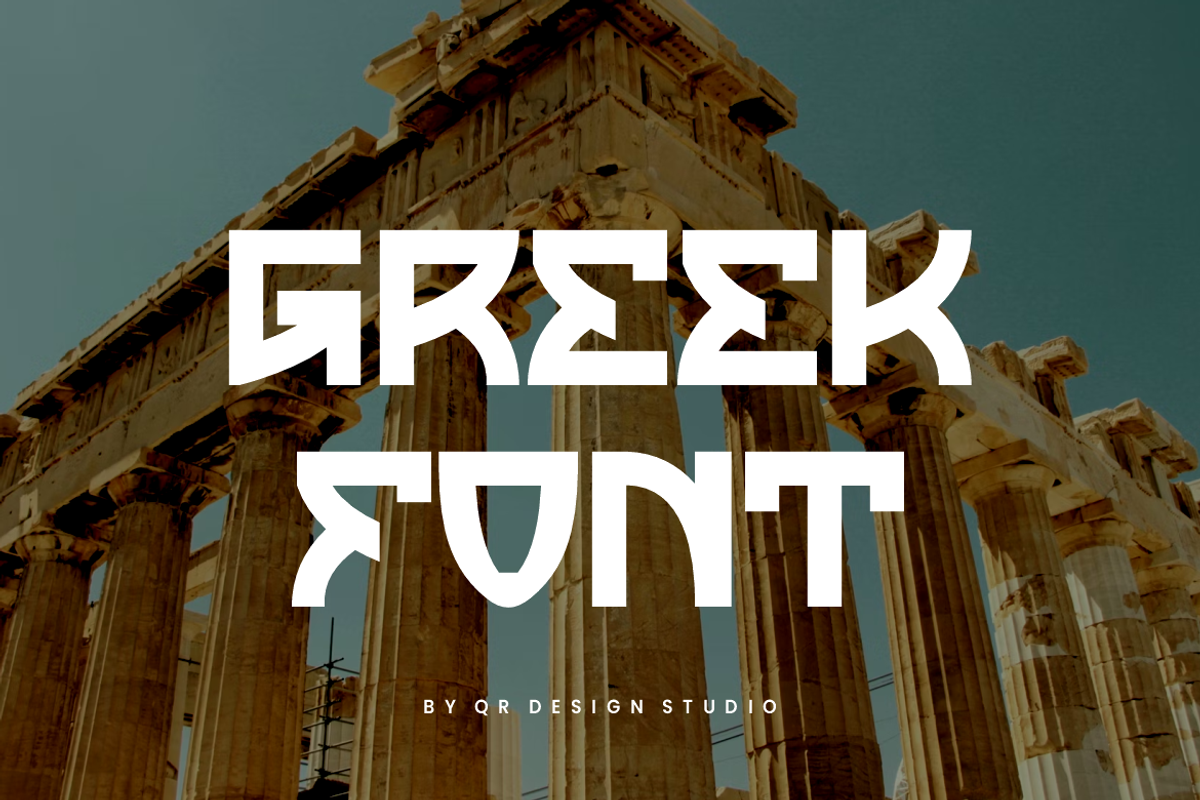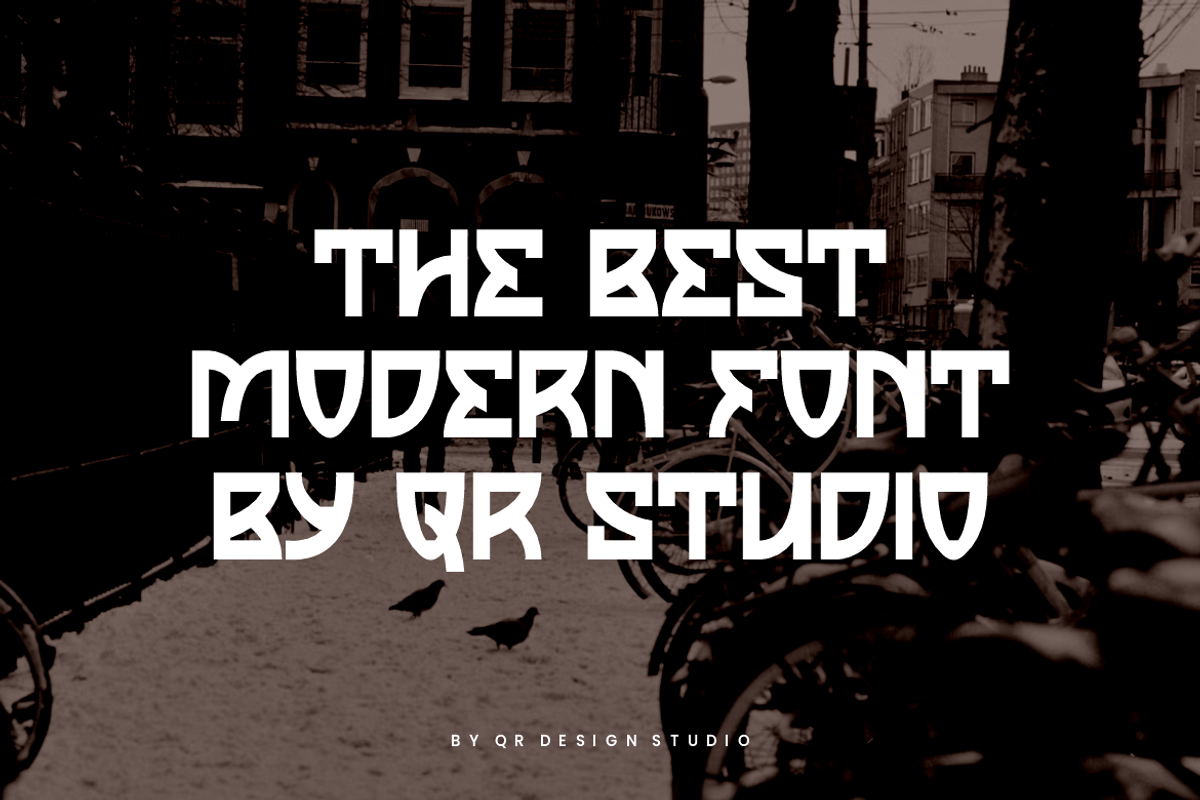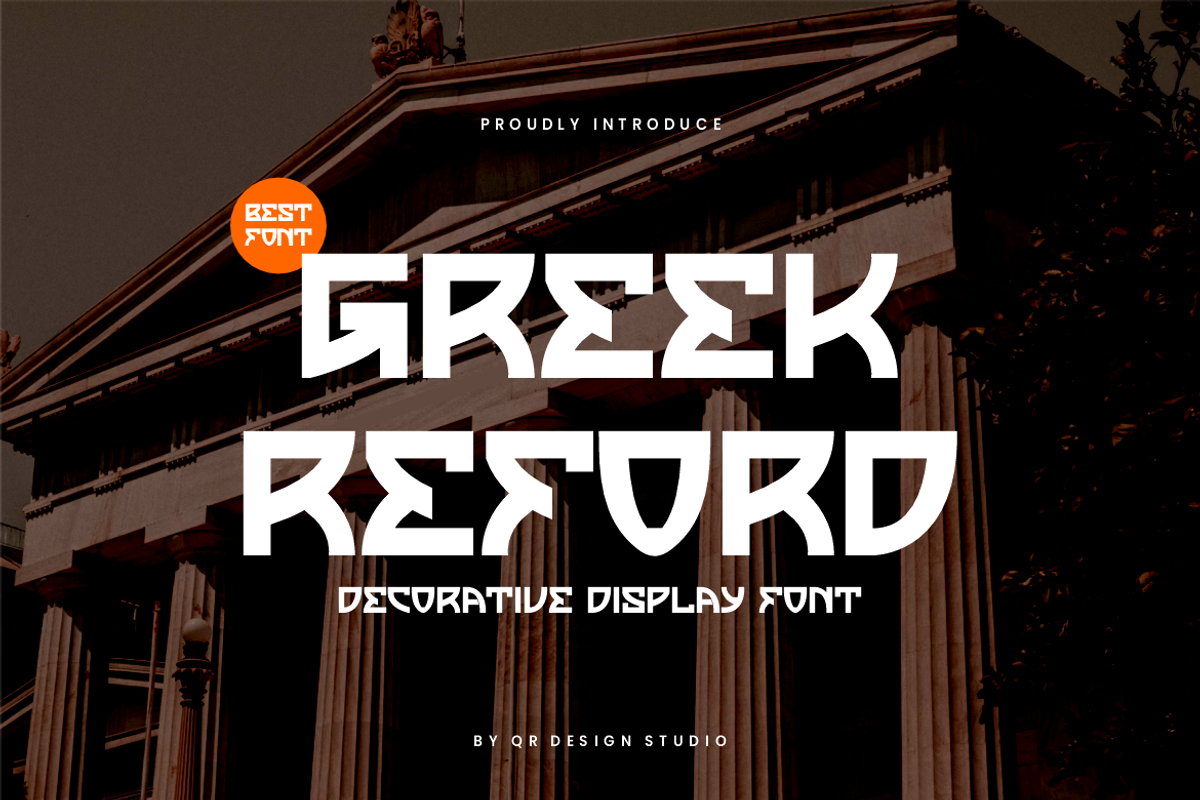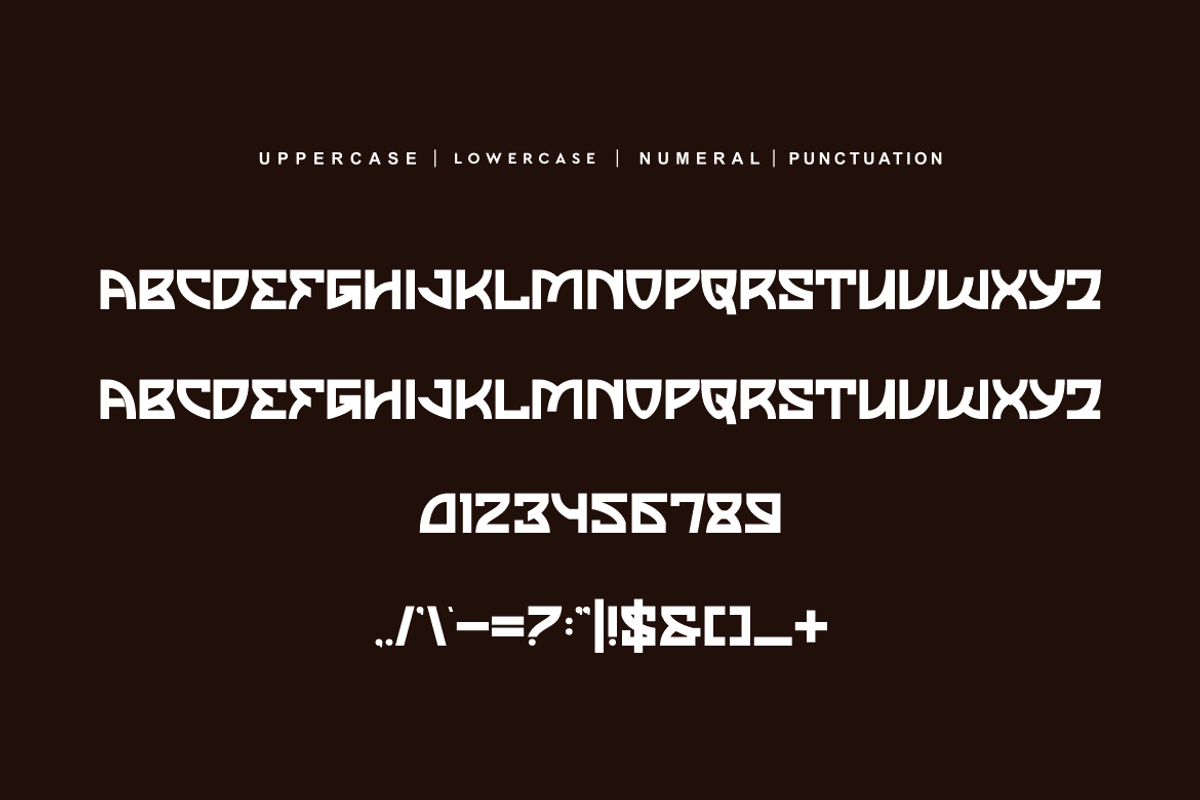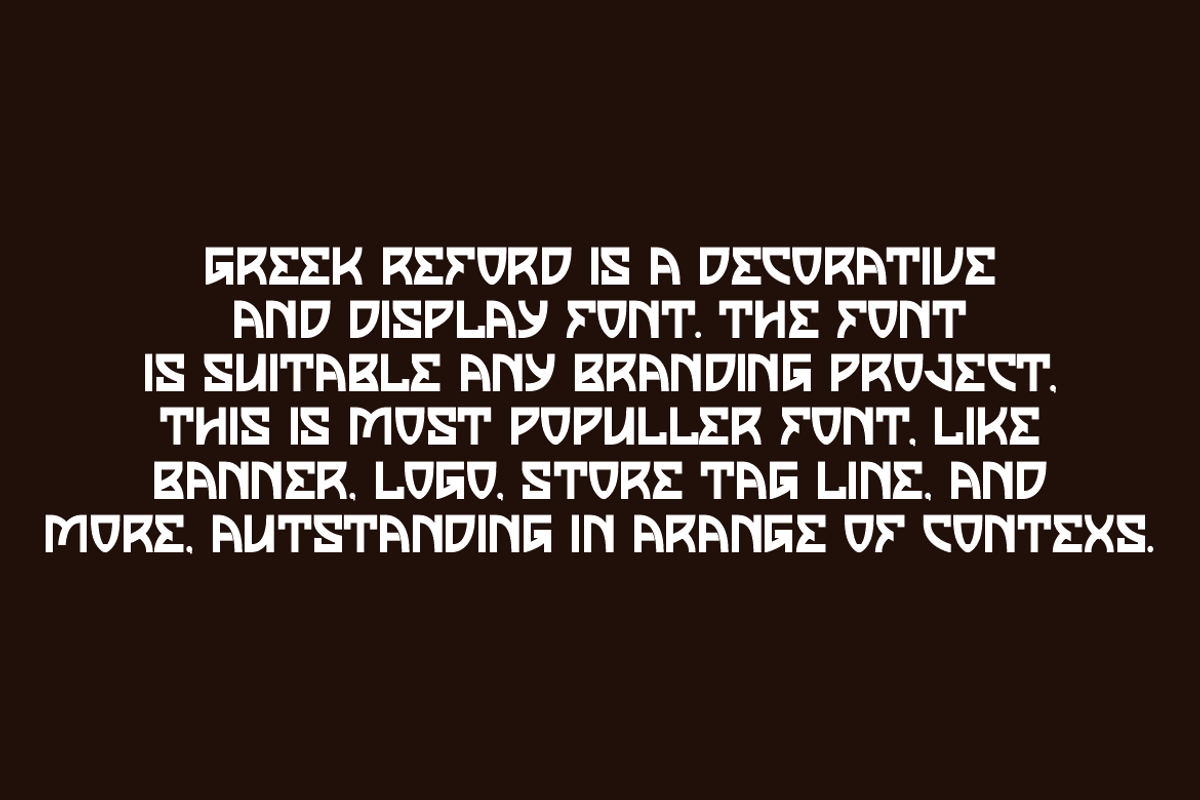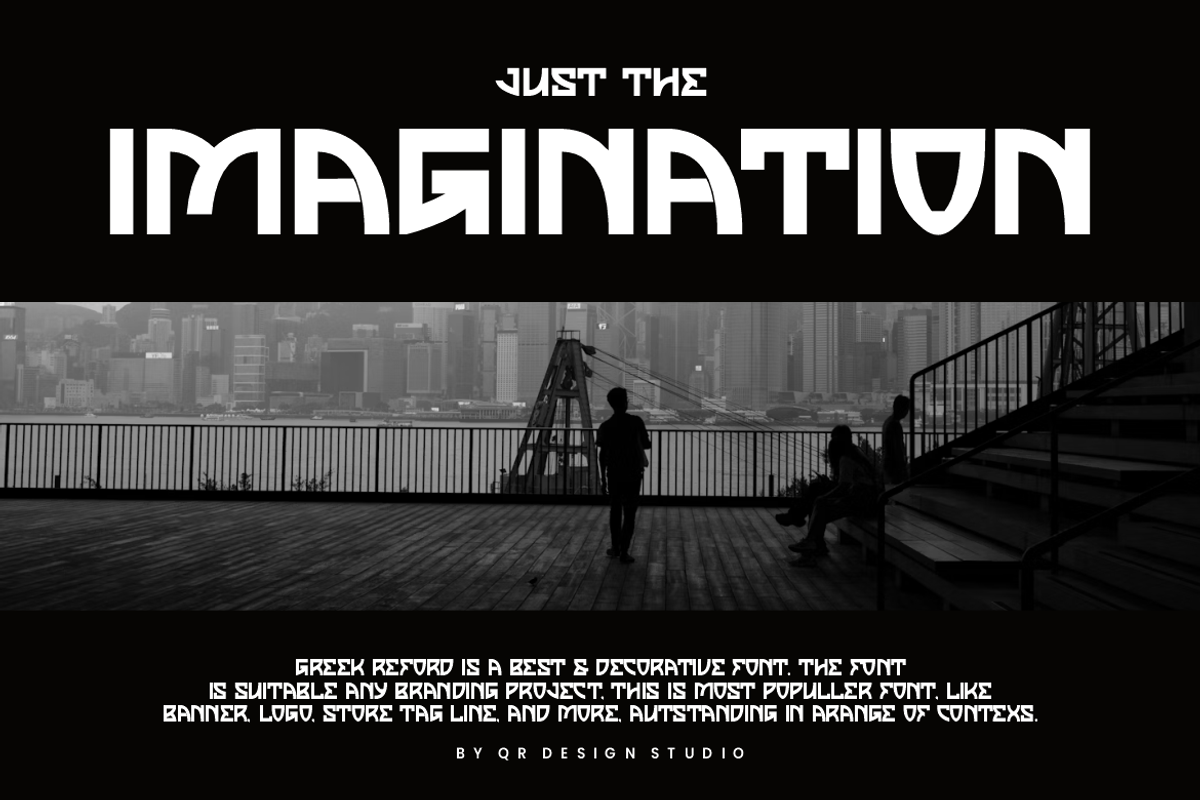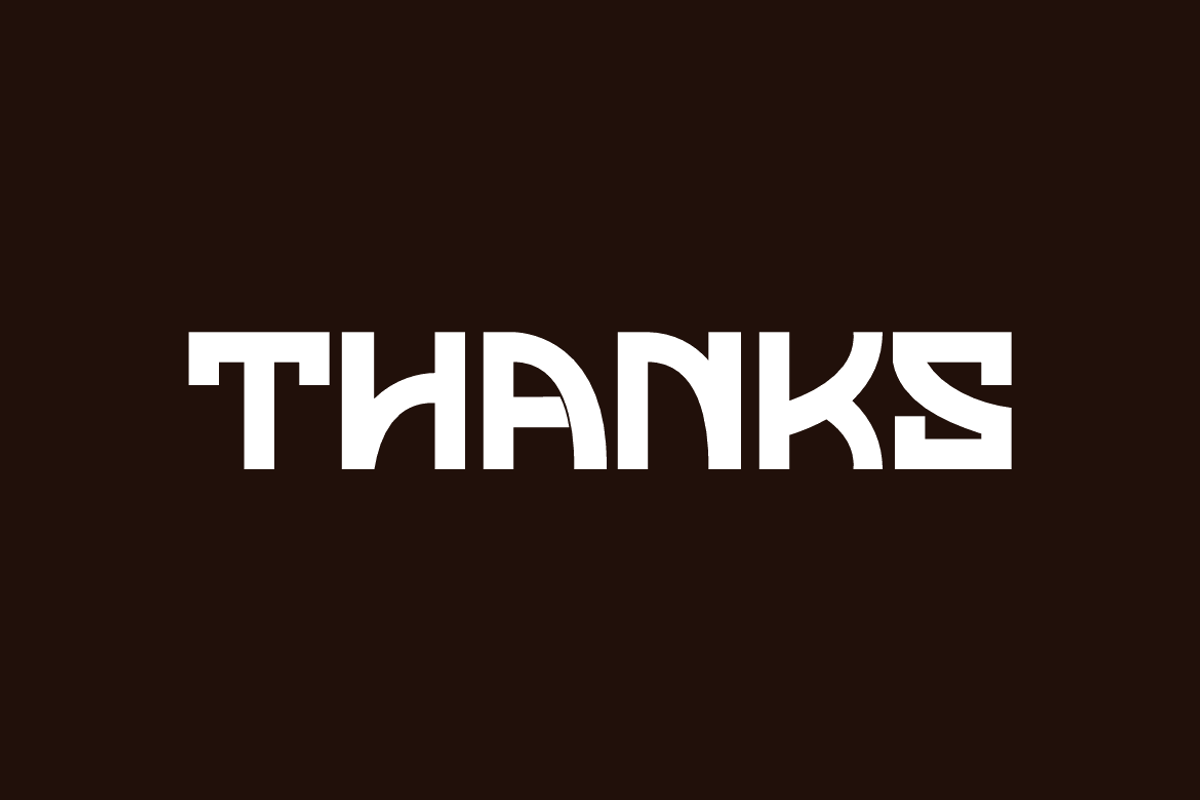
Greek Reford - Unique Typeface Font
Greek Reford Font is a bold and authentic display font. The font is suitable for any branding project like poster, logo, sport, and many more. Outstanding in a wide range of contexts.